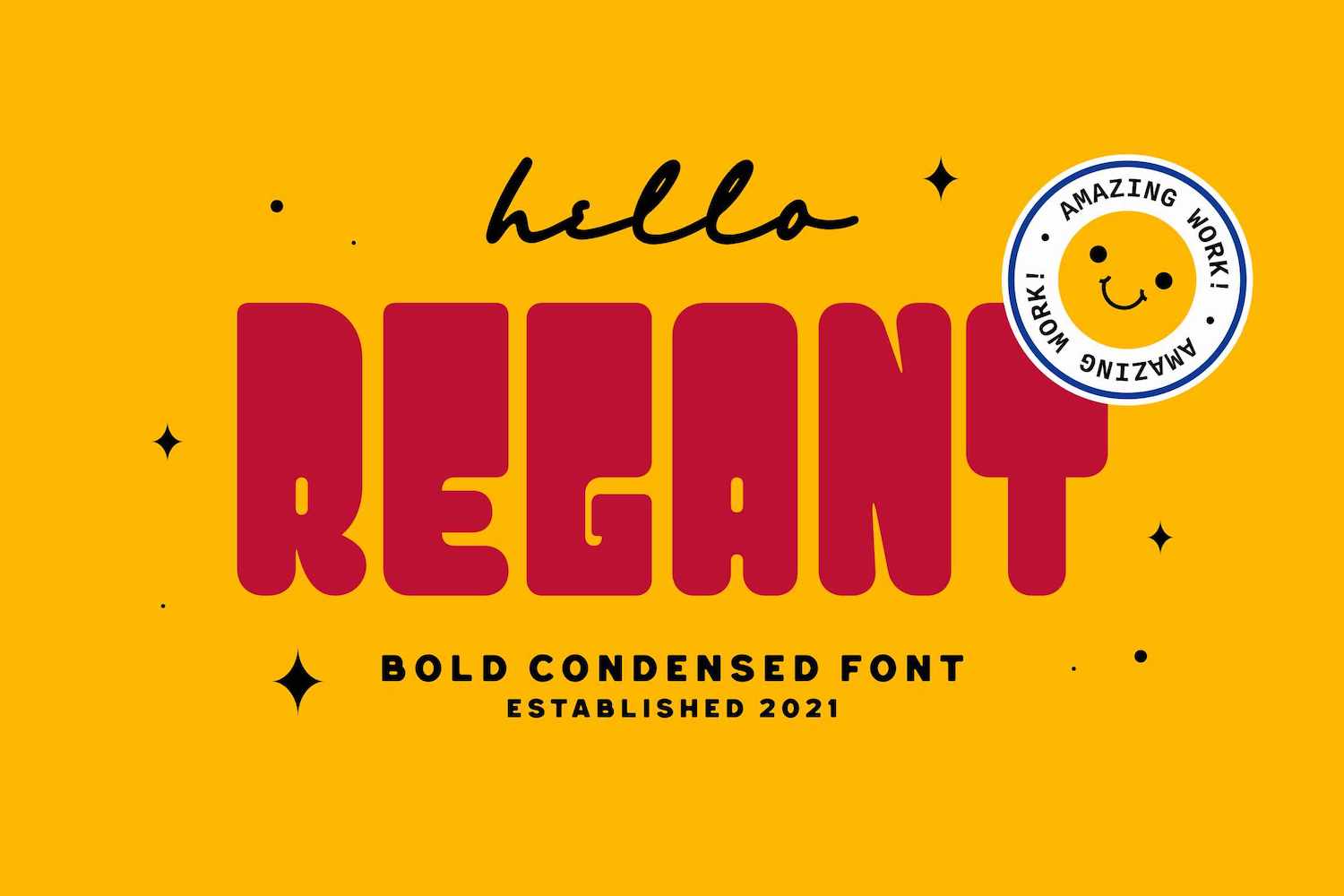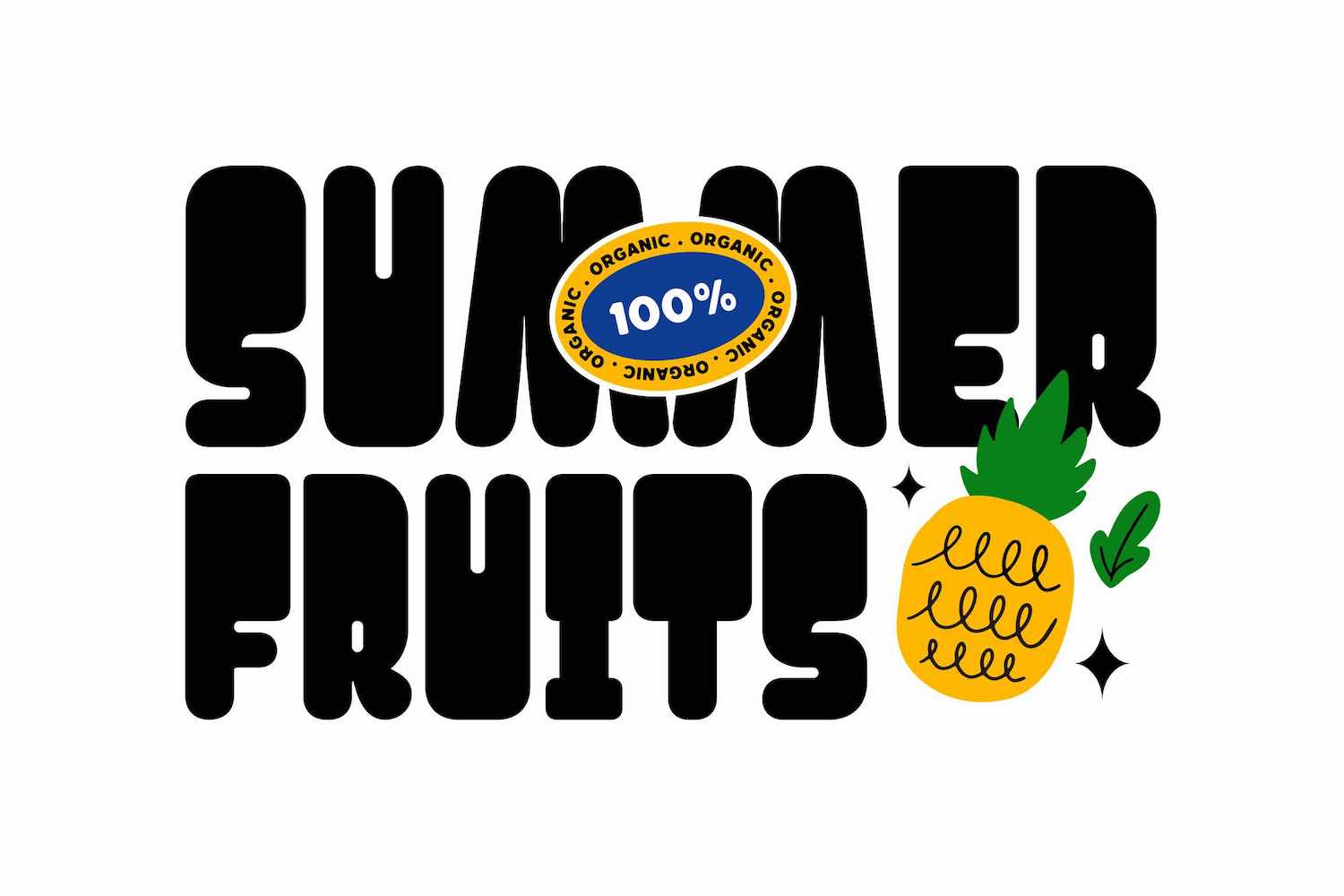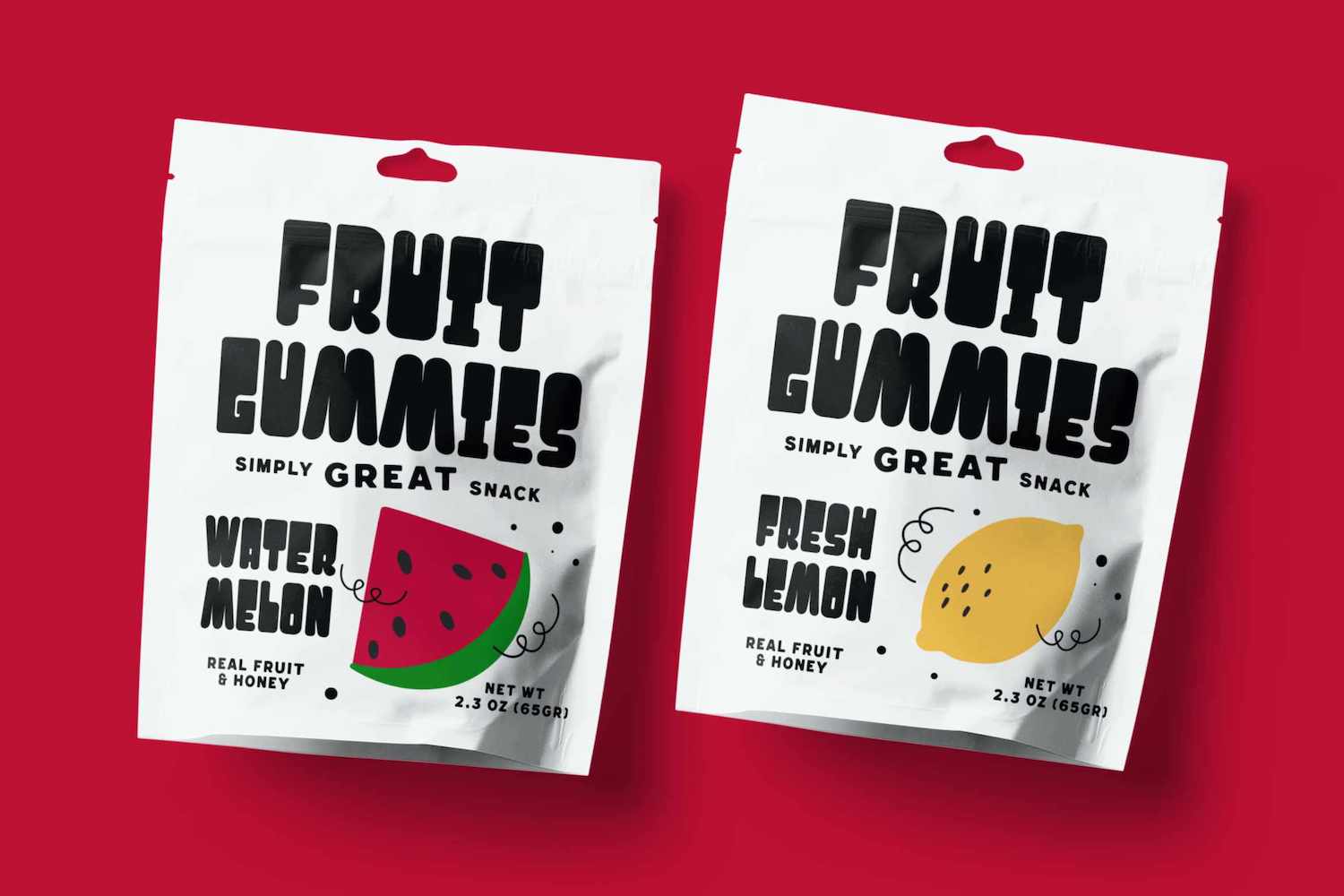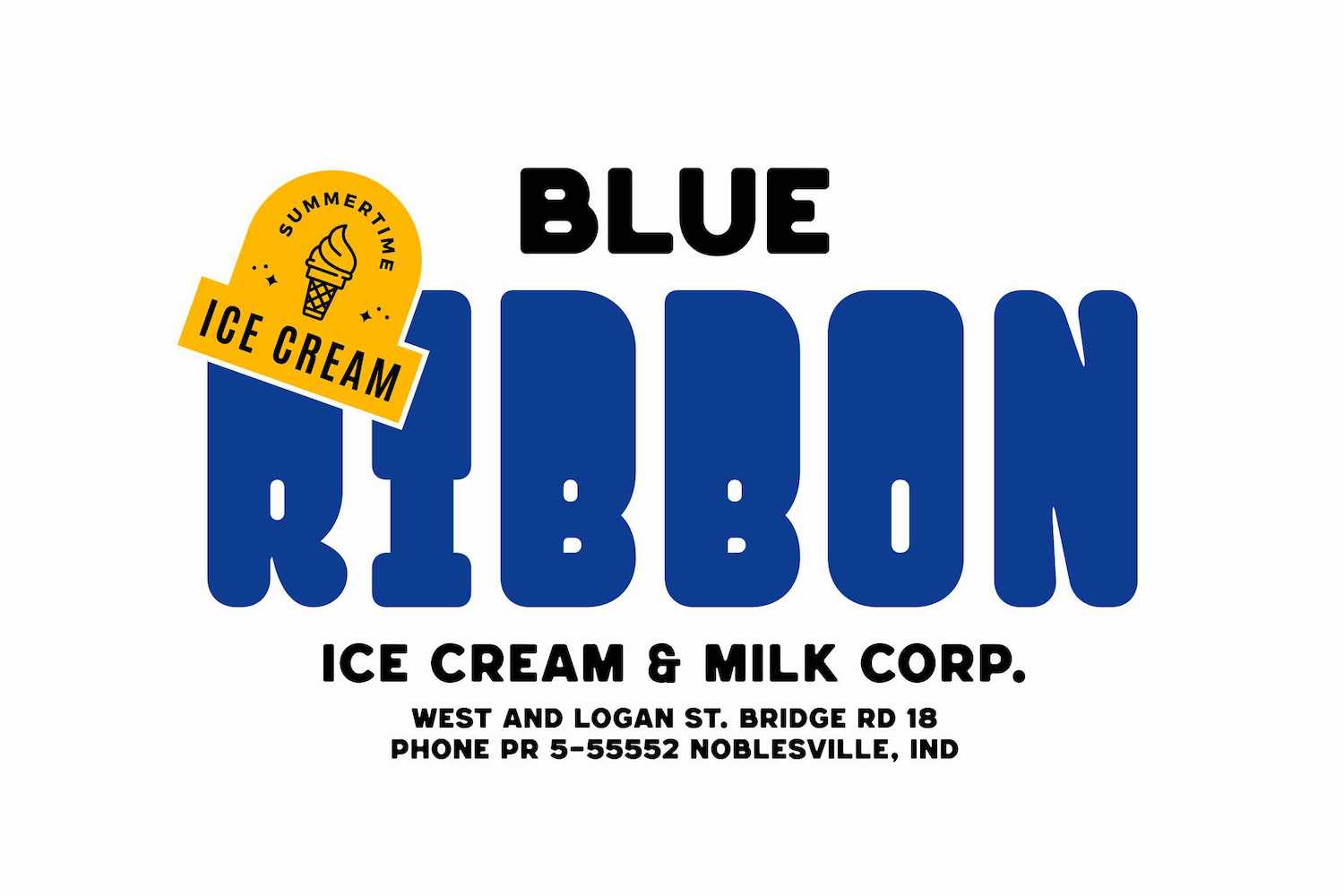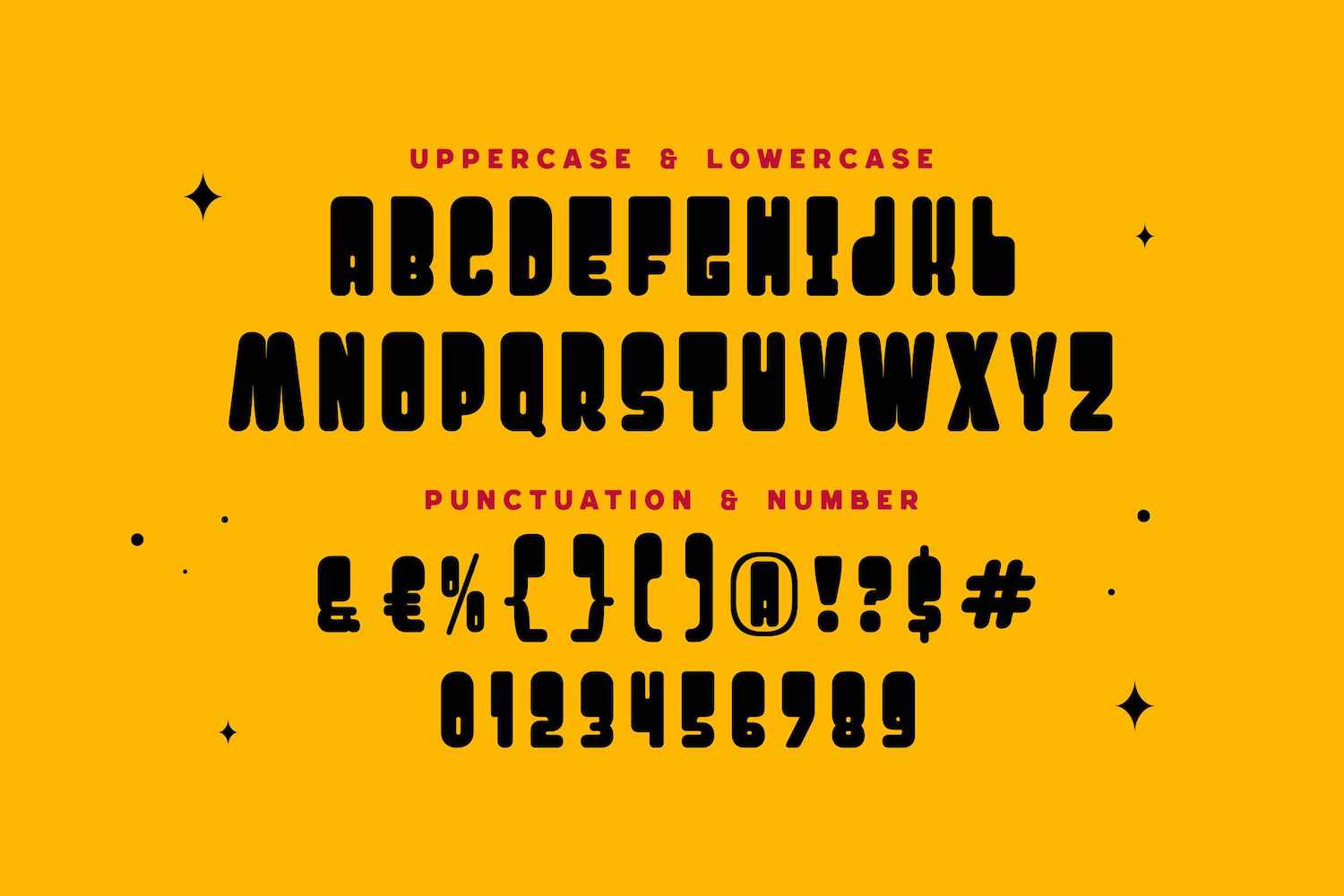
Regant is a bold condensed display font that combines playful character with a strong visual impact. Its soft curves and quirky terminals make it perfect for projects that need a fun and friendly tone. Ideal for packaging, kids’ branding, logos, and snack labels. Despite its chunky appearance, the letterforms remain legible and energetic, creating a balance between boldness and charm.
With uppercase, lowercase, numbers, and punctuation support, Regant is highly versatile and works beautifully in eye-catching headlines or product titles. Whether you’re creating colorful visuals, summer-themed graphics, or expressive merchandising, Regant is your go-to typeface for turning words into bold statements.